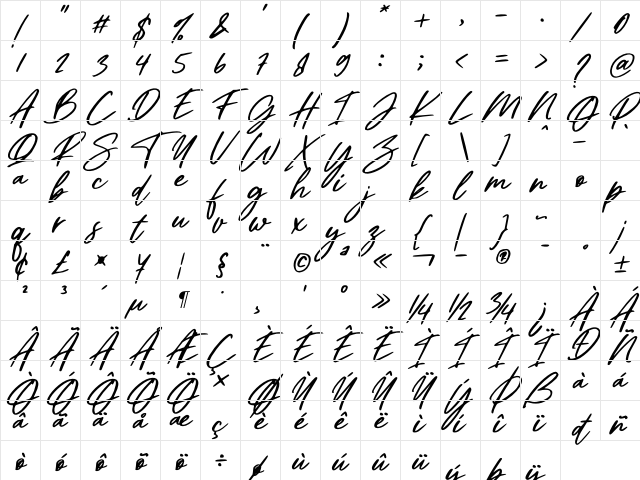
Christian Heedlay is a composed and adaptable typeface that performs quietly and consistently across a wide range of design contexts. The slanted form adds forward momentum and visual energy.
Pro Tip: Use Christian Heedlay for emphasis, pull quotes, and subheadings where its slanted energy can add rhythm to the layout.